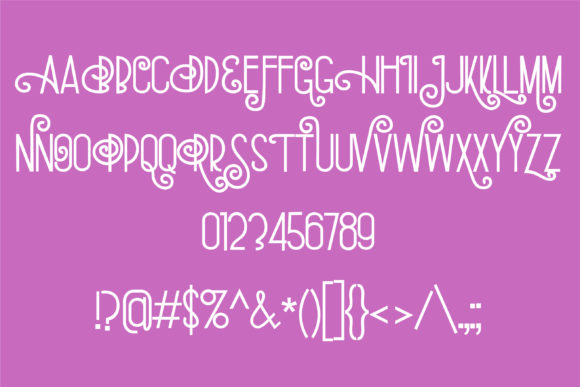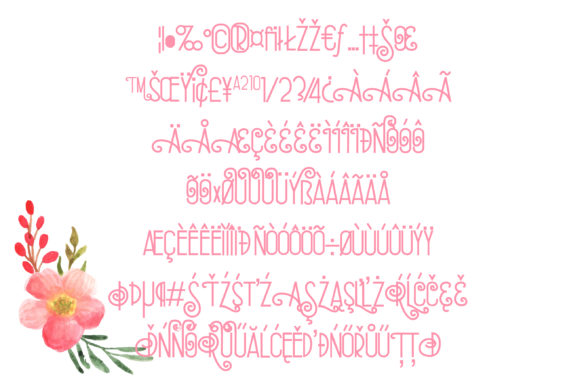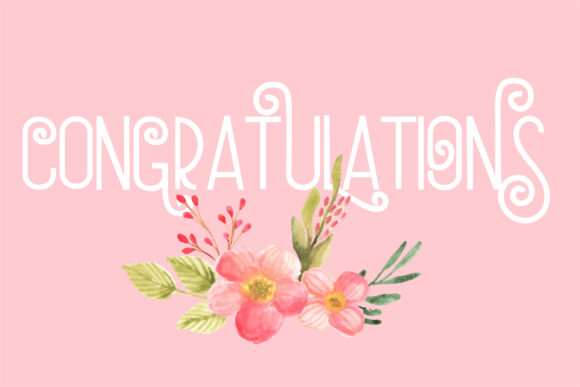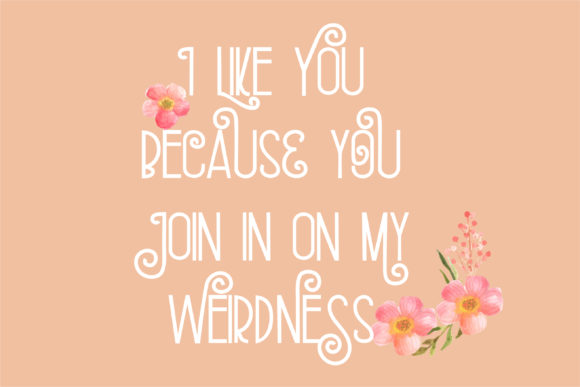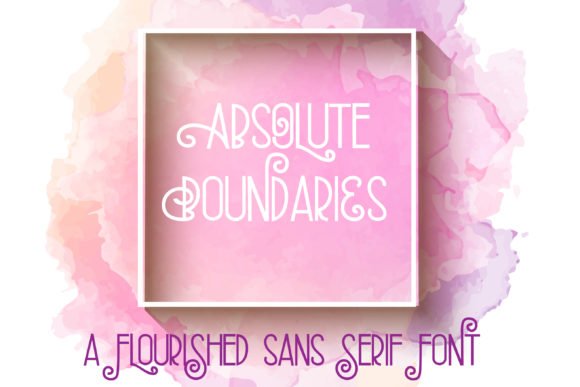
The Perfect Typography Match
Have you ever stared at a blank page, waiting for that elusive spark of inspiration to strike? For designers, this moment is a familiar friend – and a necessary evil. But what if that spark could be ignited by the perfect font? Enter the Absolute Boundaries Font, a charming sans serif typeface that’s equal parts playful and romantic.
This delightful font is more than just a pretty face – it’s a game-changer for designers looking to add a touch of whimsy to their projects. With its unique blend of modern and vintage flair, the Absolute Boundaries Font is sure to turn any design into a true showstopper. Whether you’re creating a wedding invitation or a social media campaign, this font is the perfect way to add some personality to your work.
Key Features of Absolute Boundaries Font
- Unique Characteristic: Features a unique blend of modern and traditional typography elements, creating a distinctive look
- Font Weight and Style: Includes 6 font weights (Light, Regular, Medium, Bold, Black, Outline) and 2 font styles (Regular and Italic)
Designer Review: Absolute Boundaries Font
I recently had the chance to work with the Absolute Boundaries font, and I have to say, it’s a unique addition to any design project. Here’s my honest review.
- ✨ Versatility: The Absolute Boundaries font is perfect for creating a bold, eye-catching headline or a subtle, yet striking, body text.
- ✨ Customizability: This font offers a wide range of styles, from clean and modern to bold and playful, allowing designers to experiment with different looks.
- ✨ Consistency: The font’s consistent design makes it easy to use across different platforms and devices.
- ⚠️ Limited Character Set: The font’s character set is somewhat limited, which may be a concern for designers who need to use special characters or languages.
- ⚠️ Font Size: The font’s bold style can become overwhelming when used at larger font sizes.
Overall, I think the Absolute Boundaries font is a great addition to any designer’s toolkit. While it may have some limitations, its versatility and customizability make it a valuable resource for creating unique and eye-catching designs.
Alternatives to Absolute Boundaries Font
Open Sans is a popular sans-serif font known for its clean and modern design. It’s ideal for use in digital products, websites, and applications where readability is crucial. Open Sans has a more neutral tone compared to Absolute Boundaries Font, which has a slightly more rustic feel.
Lato is a sans-serif font with a strong emphasis on readability. It’s a great choice for body text, especially in long-form content. Lato has a more elegant and sophisticated look compared to Absolute Boundaries Font, which is better suited for titles and headings.
Montserrat is a geometric sans-serif font inspired by urban typography. It’s perfect for use in titles, headings, and other display text where a strong, modern feel is desired. Montserrat has a more dramatic and attention-grabbing quality compared to Absolute Boundaries Font, which is more understated.
Inter is a modern sans-serif font designed for digital use. It’s a great choice for body text, especially in long-form content. Inter has a more neutral and adaptable tone compared to Absolute Boundaries Font, which is better suited for specific design styles or themes.